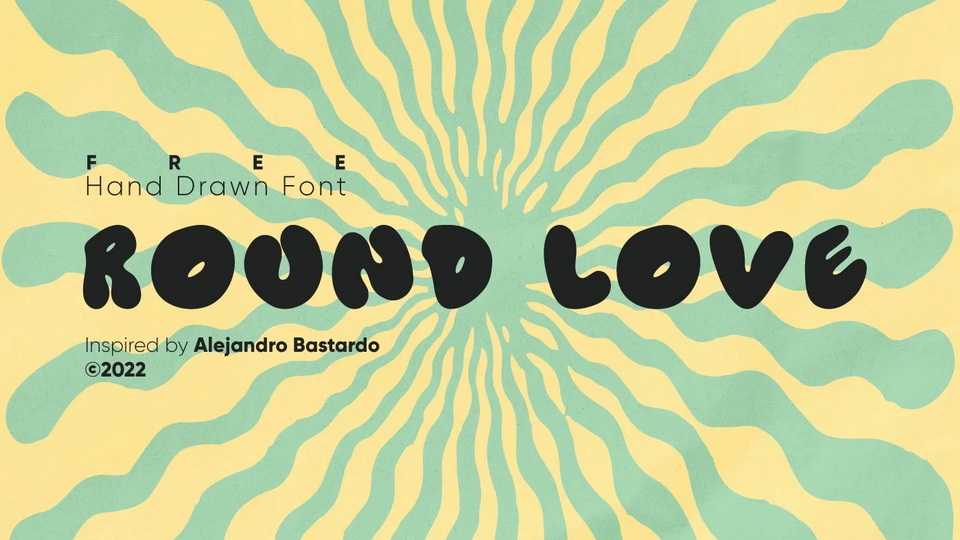
Download Round Love font, a decorative typeface made drawn by hand (with a fine tip marker), representing the design and symbol of the heart in the upper semicircular part, in a soft way with rounded shapes.
Designer: Alejandro Bastardo